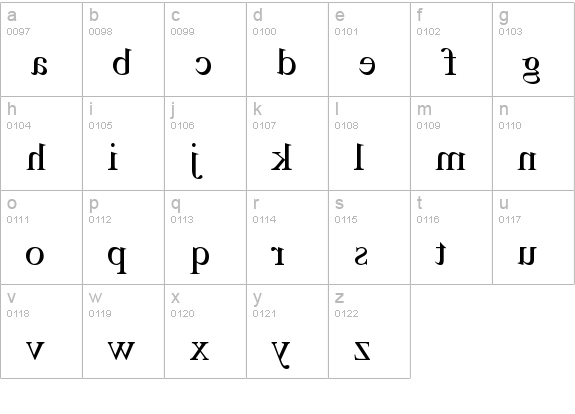
TimesMirror Font Details
TimesMirror font is a timeless and elegant typeface that exudes sophistication and professionalism. With its classic serif style and refined letterforms, this font is perfect for any project that requires a touch of elegance and sophistication. The TimesMirror font is designed with meticulous attention to detail, ensuring optimal legibility and readability in both print and digital mediums. Its clean and crisp lines make it suitable for a wide range of applications, from editorial design to branding and signage. One of the best aspects of TimesMirror font is that it is available for free download at FontsMarket.com. This means that you can easily access this exceptional typeface without any cost, making it an ideal choice for designers, creatives, and typographers who are looking for high-quality fonts without breaking the bank. Whether you are working on a branding project, designing a magazine spread, or creating a professional presentation, TimesMirror font will add a touch of elegance and sophistication to your work. Its versatility and timeless appeal make it a must-have font in every designer's toolkit. Download the TimesMirror font for free today at FontsMarket.com and elevate your designs with this exquisite and freely available typeface. Don't miss out on the opportunity to enhance your projects with this classic and elegant font.